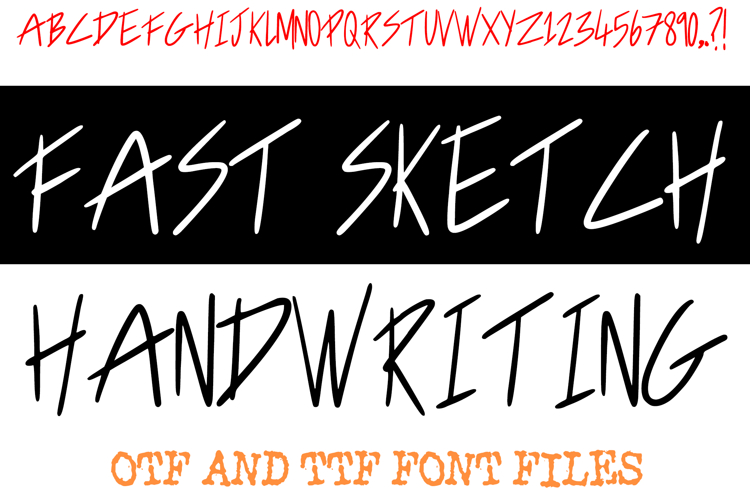
Fast Sketch Handwriting Alphabet Lettering ABC Scribble Font
Unleash spontaneous energy into your designs with Fast Sketch Handwriting Font! This wonderfully dynamic typeface perfectly mimics the authentic, quick, and expressive strokes of rapid sketching or informal note-taking. It's more than just a font; it's an instant burst of raw and creative freedom, designed to bring a unique, human touch and lively vibe to any creative project, making your text feel genuinely handcrafted and full of character.
Each character in Fast Sketch Handwriting Font is crafted with bold, fluid, and slightly irregular strokes, as if quickly jotted down with a confident hand. Its informal yet clear forms make it an ideal choice for a wide array of applications, including branding, energetic social media posts, urban-themed designs, protest art, comic book bubbles, quick annotations, or any creative work that calls for a unique blend of immediacy and authenticity. The deliberate imperfections add to its charm, giving your content an approachable and dynamic edge.
Whether you're creating engaging content, adding a custom feel to digital products, crafting impactful messages for a youthful audience, or printable materials, this font will bring an undeniable sense of fun, originality, and a handmade aesthetic to your work. Its legible yet spirited lines ensure readability while delivering a memorable visual experience. If you're looking to infuse your designs with raw charming informality, and an undeniable touch of spontaneous artistry, Fast Sketch Handwriting Font is your ultimate tool. Sketch your ideas with speed and style!